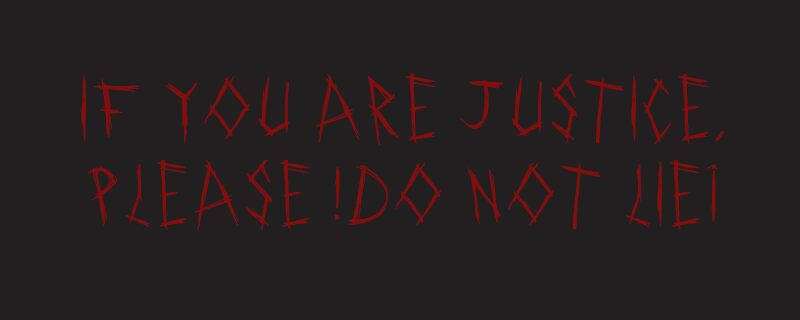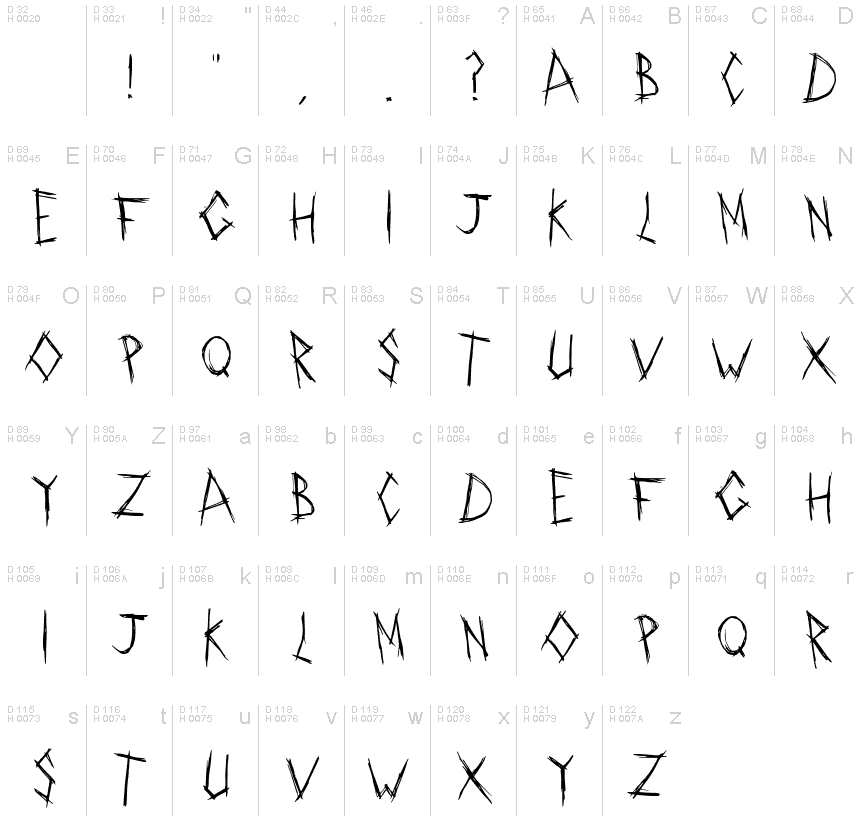
Riddler Regular
Riddler, crafted by the talented Jesus Trejo, is a captivating script font that exudes an edgy charm. With its semi-light weight, this typeface adds a touch of sophistication to any design project. Its trash style lends itself perfectly to rebellious and unconventional themes such as punk album covers or urban streetwear branding. Whether you're working on an alternative fashion magazine or designing daring event posters, Riddler's unique character will ensure your text stands out from the crowd while maintaining readability and legibility. Unleash your creativity with Riddler!